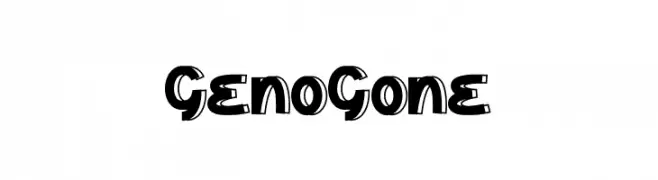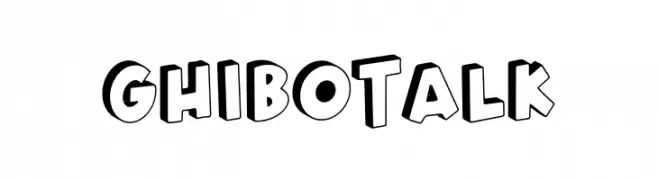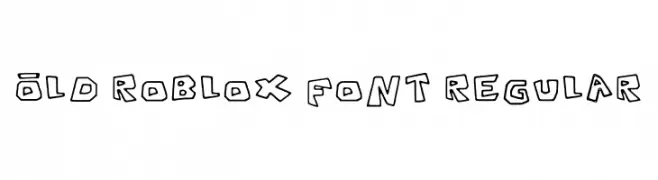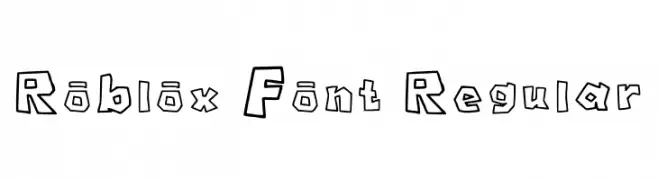
( Fonts by FG Studios )
A playful, bold font with rounded, thick strokes and a cartoonish style.
( Fonts by Moch Zaenal Abidin )
A bold, playful font with thick, rounded strokes and a cartoonish style.
( Fonts by peep peep )
A playful, hand-drawn font with bold, irregular characters and a cartoonish style.
( Fonts by Jadatype )
A playful, bold font with a unique shadow effect and cartoon-like style.
A playful, bold, hand-drawn font with thick outlines and a cartoonish style.
( Fonts by MJType )
A playful, bold font with rounded, bubble-like characters ideal for fun and whimsical designs.
( Fonts by The Docallisme )
A playful, bold font with a 3D cartoon style and thick outlines.
( Fonts by FontKawaiiCo )
A bold, rounded, and playful font with a cartoonish style.
( Fonts by philipwesoloski )
A playful, bold, and cartoonish font with thick outlines and irregular shapes.
A playful, bold font with a whimsical, cartoonish style.